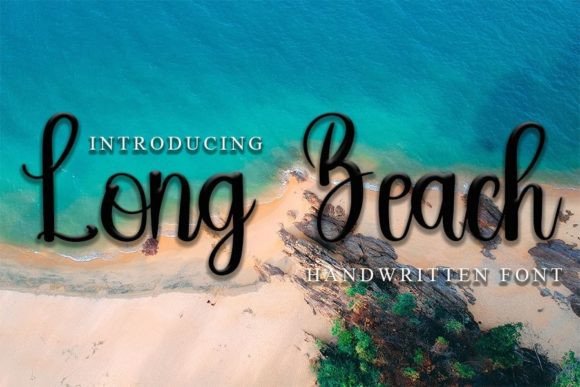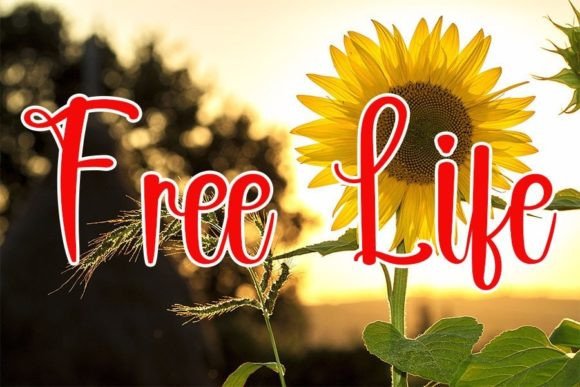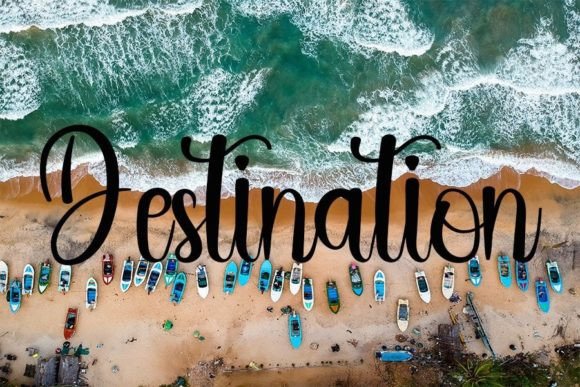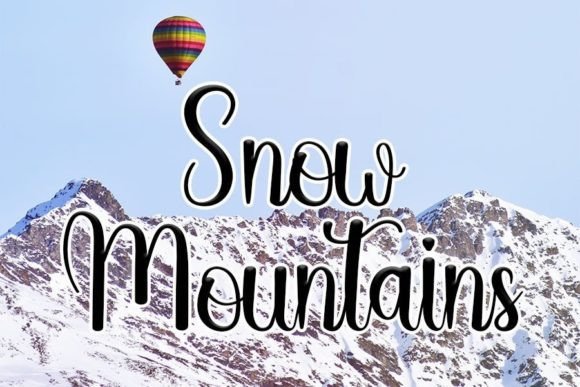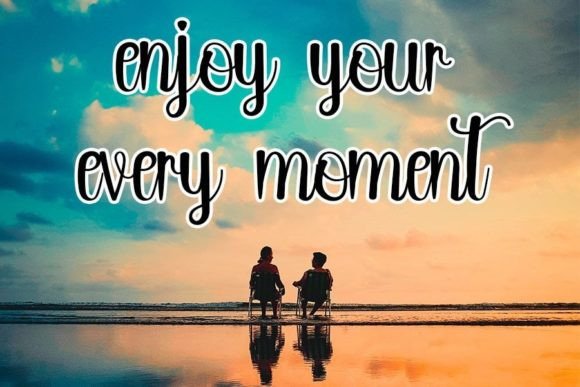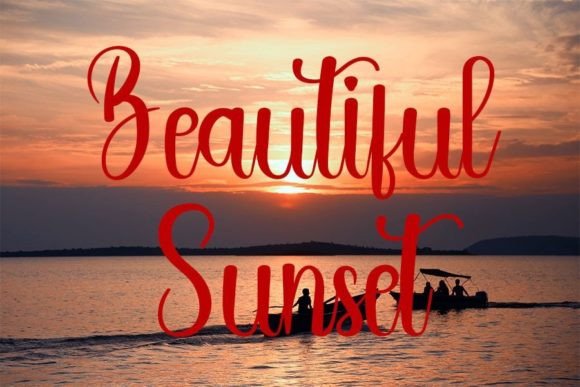
Long Beach Font
“Long Beach” is a slim and delicate handwritten font designed to evoke a sense of daintiness and joyfulness. With its slender and graceful appearance, this font is particularly well-suited for writing wedding invitations, cards, and other designs that require a romantic and personalized touch.
The slim and delicate strokes of “Long Beach” contribute to its graceful and refined look. This font is crafted to add a touch of elegance and intimacy to your text, making it ideal for projects where a romantic and personalized aesthetic is desired.
The overall design of “Long Beach” makes it a versatile choice for a variety of occasions. Whether you’re working on wedding invitations, greeting cards, or any project that calls for a romantic and handwritten touch, this font enhances the overall charm of your designs.
In summary, “Long Beach” is more than just a font; it’s a design element crafted to bring a sense of daintiness and joyfulness to your projects. Its slim and delicate handwritten style makes it an excellent choice for creating designs that exude romance and personalized elegance. Let “Long Beach” be the font that adds a refined and romantic touch to your creative endeavors, making them truly special and memorable.